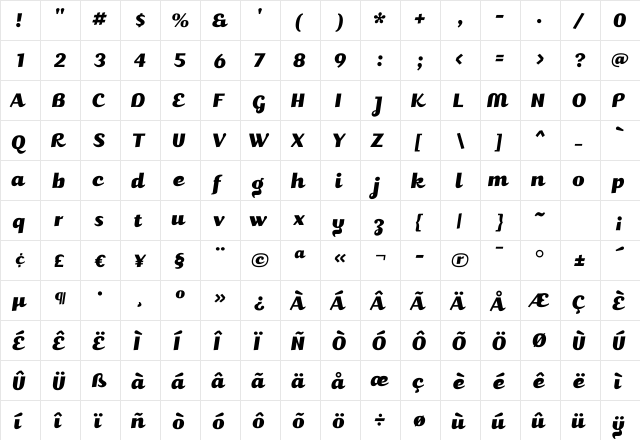
JuicyBold Italic Regular Font Preview
Design Context for JuicyBold Italic Typeface
JuicyBold Italic offers clean, dependable letterforms without strong stylistic allegiance, making it a practical choice for designers who need flexibility. The dynamic lean of this cut emphasises speed and emphasis in any layout. The heavy weight commands attention and anchors typographic hierarchies.
Pro Tip: Try JuicyBold Italic for annotation and caption copy alongside an upright companion — the contrast in angle creates a dynamic but ordered typographic system.